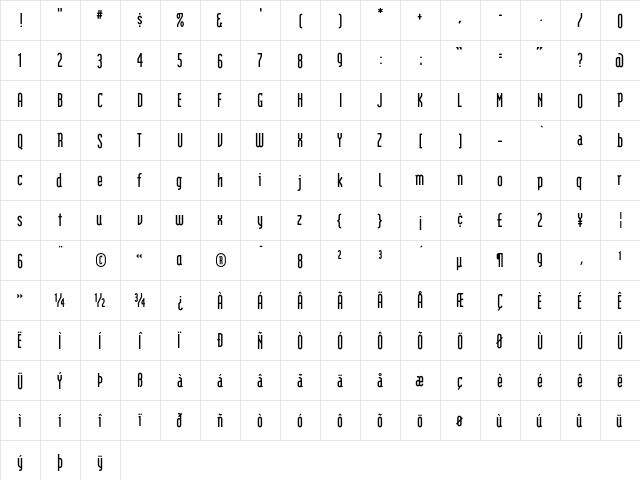
ModulaBold Regular Font Preview
ModulaBold Regular
Design Context for ModulaBold Typeface
ModulaBold offers clean, dependable letterforms without strong stylistic allegiance, making it a practical choice for designers who need flexibility. Its bold stroke weight gives it real presence on the page.